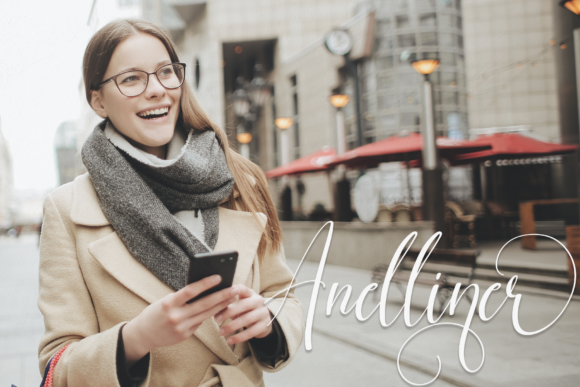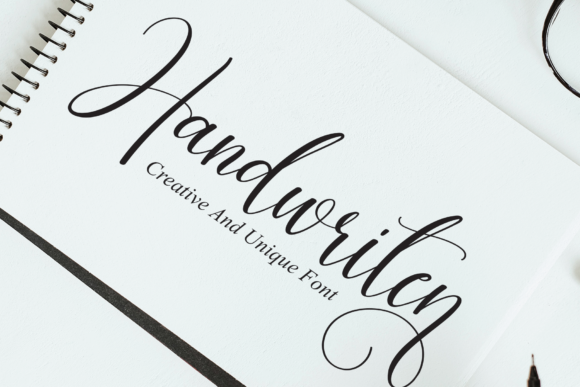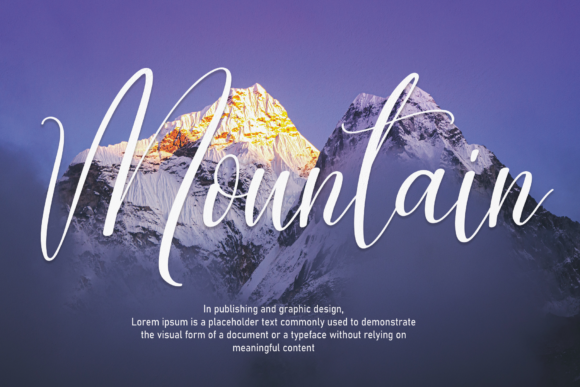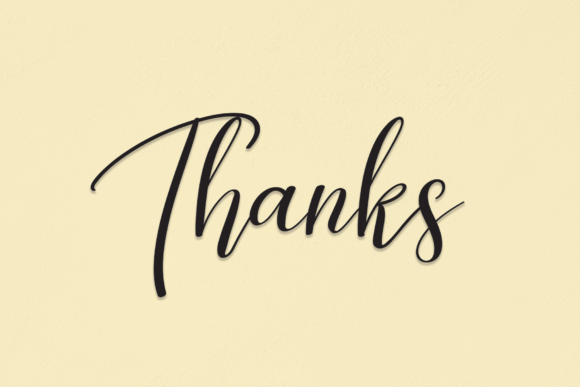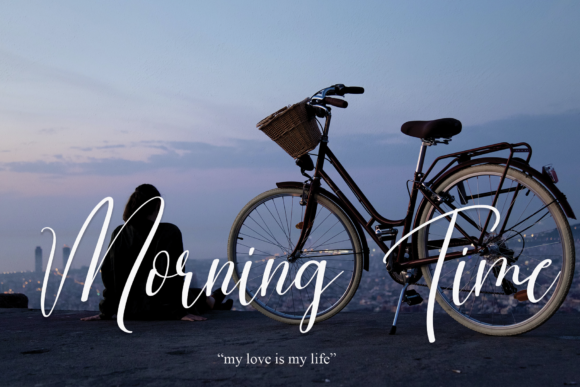
Planner Font
About Planner Font
Planner is a charming and modern handwritten font. Use it to create amazing wall displays, wedding invitations, social media post logos, advertisements, product packaging, product designs, labels, photography, watermarks, invitations, stationery, and any other project that require a handwritten touch.